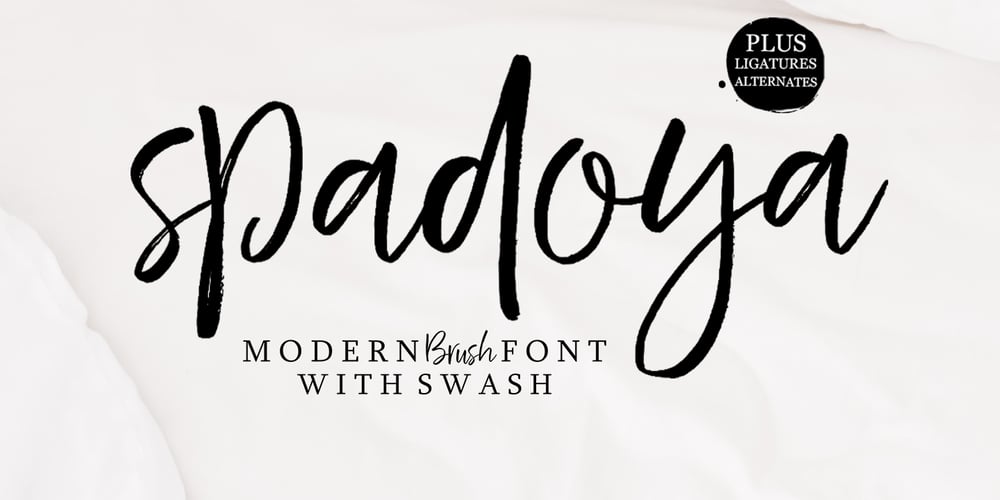
Spadoya Font Family was designed by Naufal Paramata and published by Youngtype. Spadoya contains 3 styles and family package options. Spadoya is a hand brushed font made with brush and ink. This typeface is ideal for use in bold watercolor designs or handwritten styles, such as blog titles, posters, wedding elements, t-shirts, clothing, book covers, business cards, greeting cards, branding, merchandise, etc.Contains full set:- Uppercase- Lowercase- alternative- Ligature- Punctuation- number- multilingual support.And also Spadoya Alternates and Swash, working in tandem with Spadoya Regular to create extraordinary typographic creations. Get inspired by the preview above.How to access all alternative characters, using the Windows Character Map with Photoshop:- https://www.youtube.com/watch?v=Go9vacoYmBwHow to access all alternative characters using Adobe Illustrator:- https://www.youtube.com/watch?v=XzwjMkbB-wQThank you!